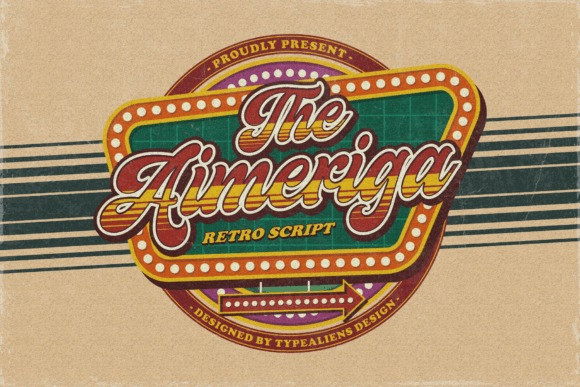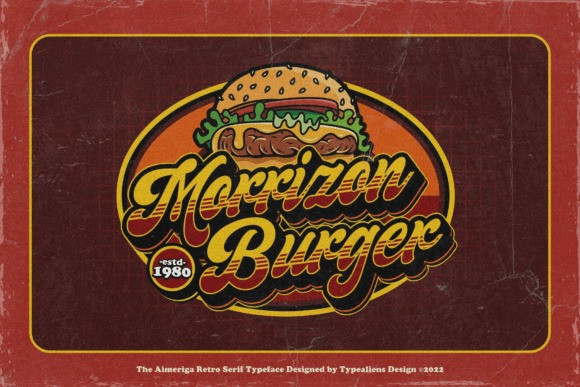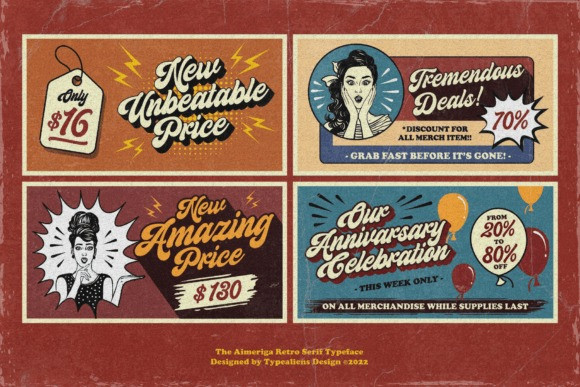
Aimeriga Font
Aimeriga is a vintage script font with fat features on its body, a font that is suitable for branding food, fashion, or anything that requires a retro vibe It has a relaxed and casual feel and is easy to add to various layouts according to your design needs.